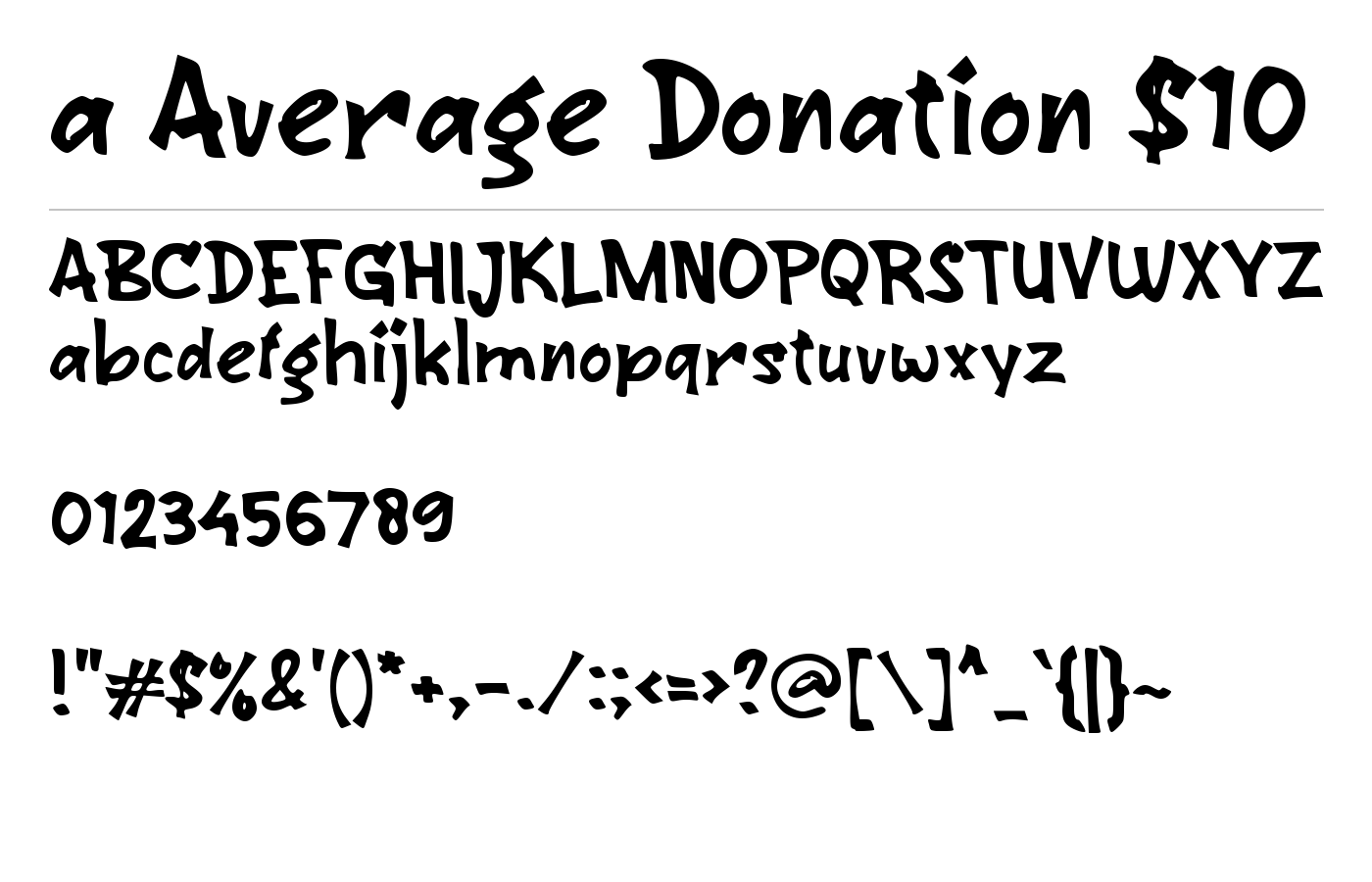
The "a Average Donation $10" font is a playful and casual handwritten sans serif that brings a friendly, informal vibe to any design. Its irregular, slightly bouncy characters and varying stroke widths give it a lively, approachable feel ideal for creative projects, kids’ materials, or quirky branding. This font works best in headlines, posters, and packaging where a fun and personal touch is needed to engage viewers.
a Average Donation $10 Font